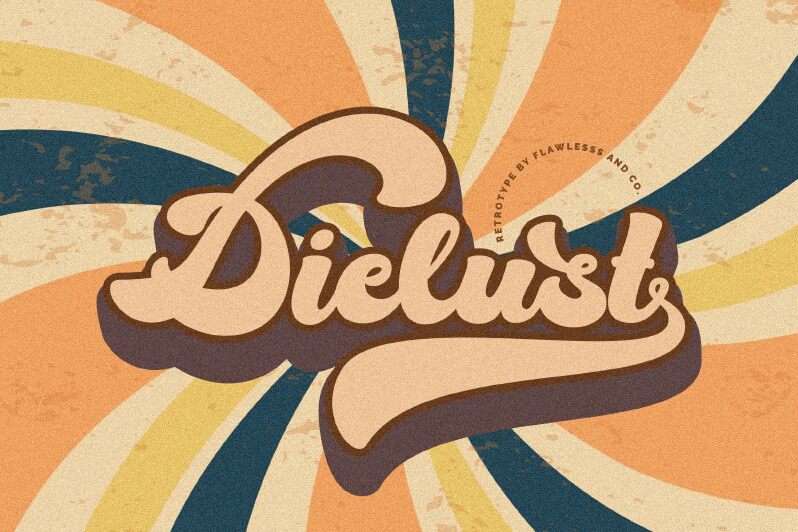
Dielust Regular
Dielust font by Achmad Yani is a bold brush free font with flowing script letters made with energy and expression. The energetic typeface takes inspiration from retro designs and adds an artistic touch to its usual vintage style. Apart from traditional letters, Dielust has some more surprises like swirls and swashes which can introduce special character.
The vibrant font is suitable for logotypes, packaging, posters, movie titles, book covers, greeting cards, invitations, or ad campaigns. Additional uses can be menus (restaurant/coffee shop), website headers especially for personal blogs), magazines that require stylish headlines/typography.